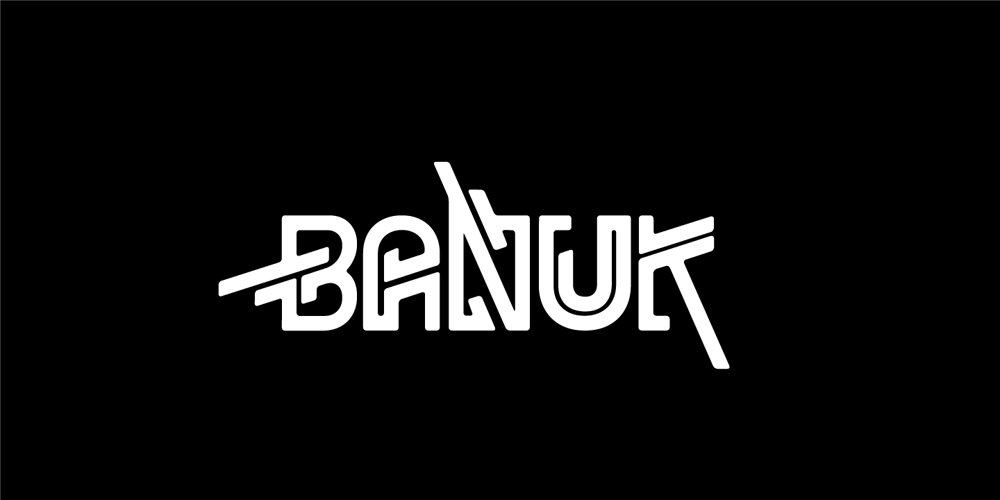
Banuk Font Family was designed by Jarnawi Saja and published by Grontype. Banuk contains 1 styles and family package options. Banuk is a brand new techno font designed with slanted line accent, the fonts is rounded edges and little imminent space between fonts. This font is a regular bold font and all caps with different style between uppercase and lowercase. Banuk is perfectly used font in any project such as logo font, flyer header, name card, invitational header, movie poster, website header and much more.Features: Uppercase and lowercase Numeral and punctuation More Alternates and Ligatures Multilingual Support What inside Main Files Banuk .ttf Banuk .otf webfont Thankyou for choosing this font, i hope you enjoy it.Regard, Grontype